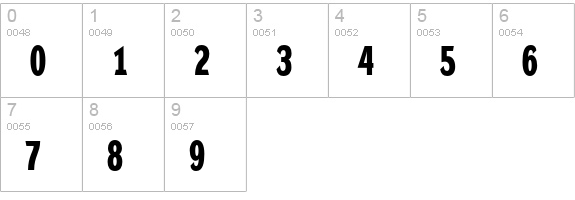
Dynamo B C font is a dynamic and bold typeface that exudes power and strength. With its sharp edges and modern aesthetic, this font is perfect for making a statement in any design project. Whether you're creating a poster, logo, or website, Dynamo B C will make your text stand out and command attention. What's even better is that Dynamo B C font is available for free download at FontsMarket.com. This means you can easily add this striking font to your collection without any cost. Don't miss out on the opportunity to enhance your designs with the impactful Dynamo B C font today!